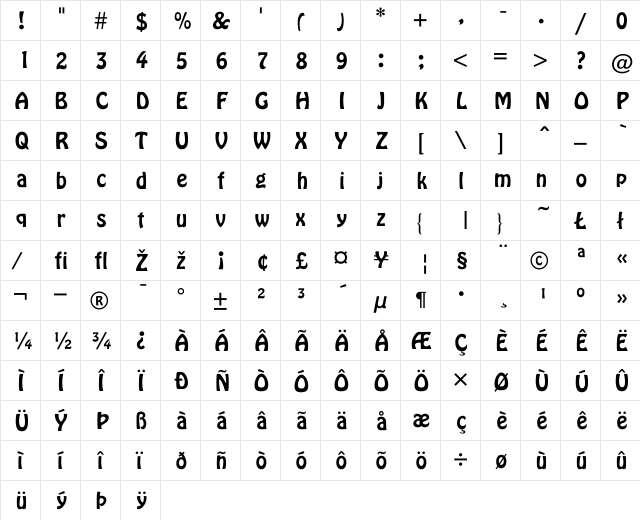
Vagabond Normal
Design Context for Vagabond Typeface
Vagabond takes a measured approach to typography — its balanced proportions and neutral character make it a reliable workhorse for both digital and print work.